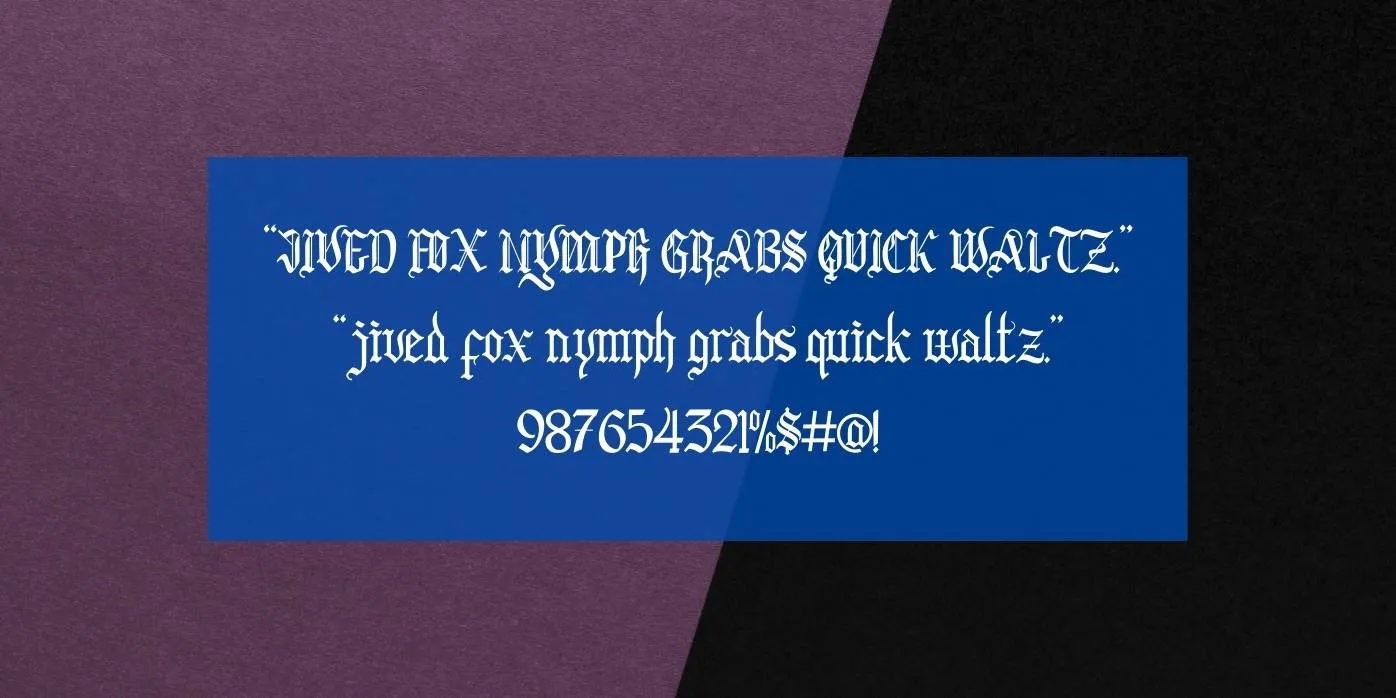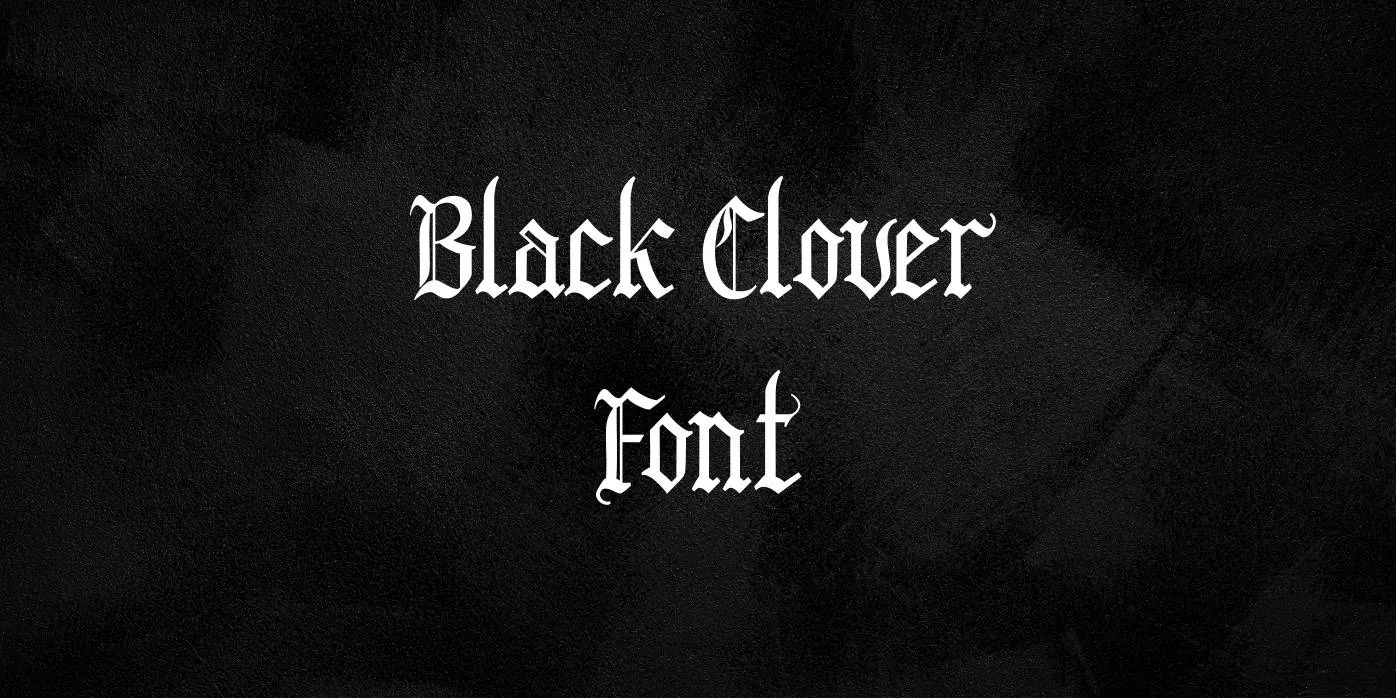
Black Clover Font
In this post, we are going to discuss a gorgeous typeface known as Black Clover Font. This typeface was developed by Lhotive Studio. It belongs to the gothic font family. It has neat and clean textures.
It is well suitable for CSS. Black Clover is a beautiful blackletter font with a very unique style. This typeface is perfect for creating a vintage or gothic-themed designs. The font includes two styles: Regular and Bold.